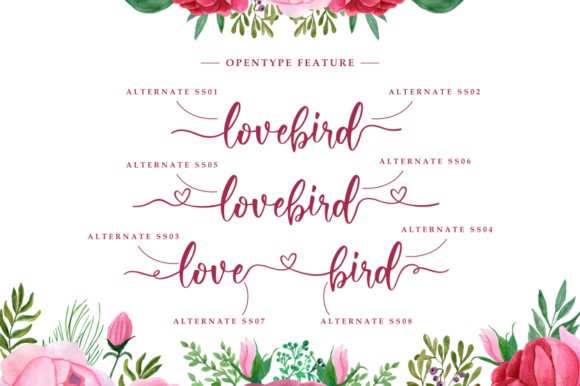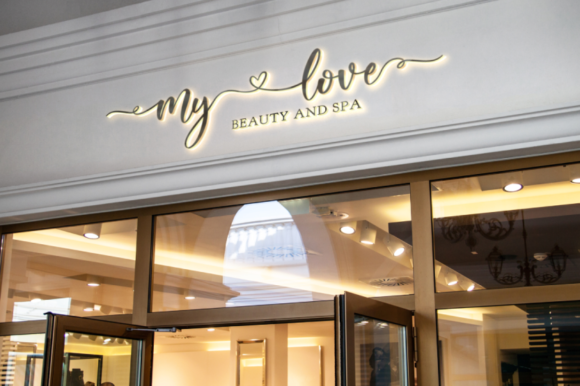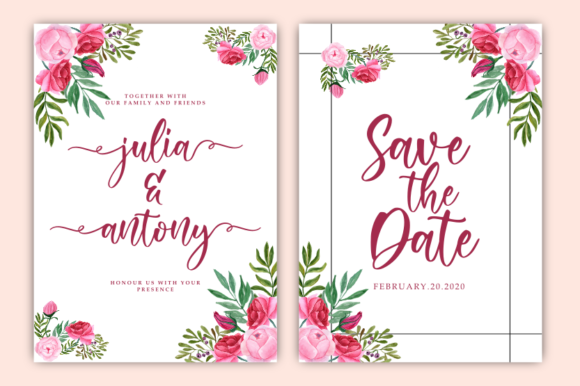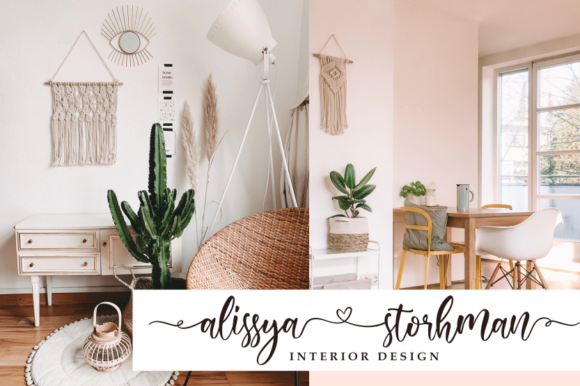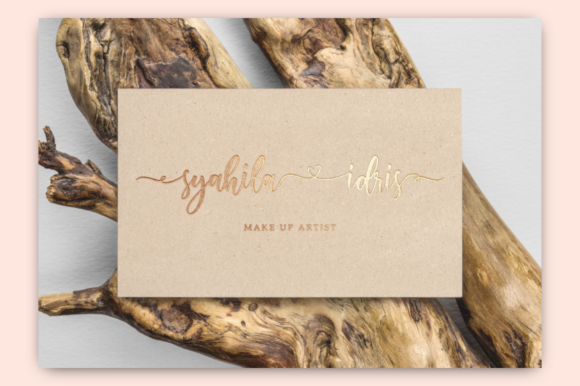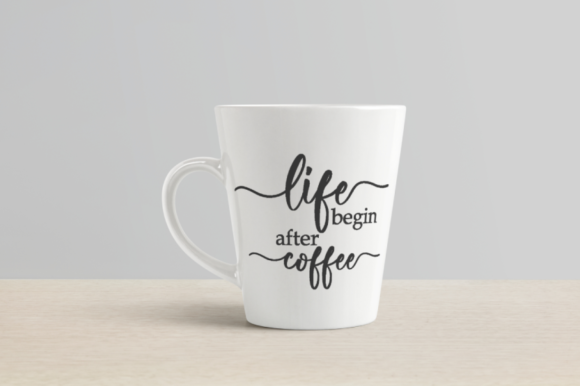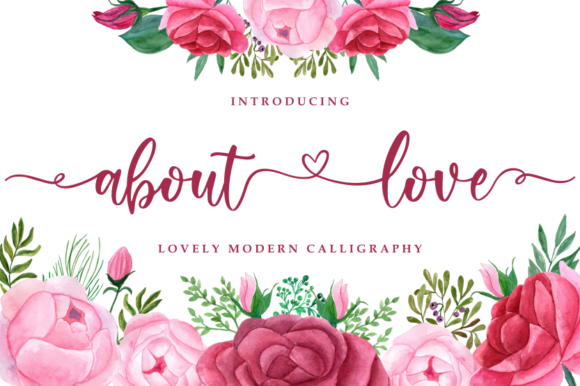
About Love Font: Add a Touch of Romance to Your Crafting Projects
Have you ever been working on a crafting project and felt like something was missing – a spark, a touch, a romantic vibe? We’ve all been there. As creatives, we’re constantly searching for that special something to make our projects truly stand out. And that’s where About Love Font comes in – a lovely modern calligraphy font with special heart characters that will add a touch of romance to any project.
Designed with love, About Love Font is perfect for designers looking to add a personal touch to their work. Whether you’re creating wedding invitations, birthday cards, or simply a special message for a loved one, this font is sure to bring a smile to their face. With its beautiful, flowing letters and adorable heart characters, About Love Font is a valuable addition to any designer’s toolkit.
About Love Font Key Features
- Unique Characteristics: The font features a beautiful, cursive script with a romantic feel, perfect for Valentine’s Day, weddings, or any occasion that celebrates love
About Love Font Review
About Love Font is a beautiful script font that exudes romance and elegance. It’s perfect for designers who want to add a touch of whimsy to their projects, especially those related to love and relationships. The font features flowing connections and subtle flair, making it a great choice for wedding invitations, greeting cards, and other sentimental designs. ✨
One of the things I love about this font is its versatility. It works well in both digital and print applications, and its cursive style makes it easy to read. The font also comes in a range of weights and styles, from light to bold, which gives designers a lot of flexibility when it comes to creating visually appealing designs.
- ⚠️ Limited character set: About Love Font has a relatively small character set, which may limit its use for longer blocks of text.
- ⚠️ Not suitable for headlines: Due to its cursive style, About Love Font may not be the best choice for headlines or titles, as it can be difficult to read in certain contexts.
Overall, I think About Love Font is a great addition to any designer’s toolkit. Its beautiful, flowing connections and subtle flair make it perfect for sentimental designs, and its versatility makes it easy to use in a range of applications. While it may have some limitations, I think it’s a great choice for designers who want to add a touch of romance to their projects.
Getting the Most Out of About Love Font
To get the most out of About Love Font, experiment with different font sizes, colors, and styles to create a unique and eye-catching design. You can also use the font in combination with other design elements, such as icons and images, to create a visually appealing design.
About Love Font is ideal for use in romantic and sentimental designs, such as Valentine’s Day cards, wedding invitations, and anniversary gifts. It can also be used in designs that require a playful and whimsical touch, such as children’s party invitations and gift tags.